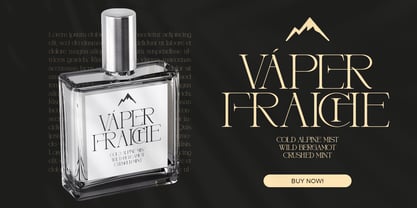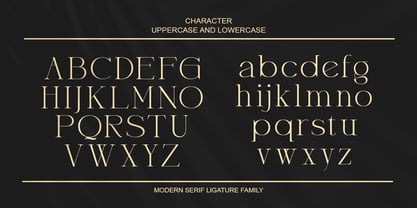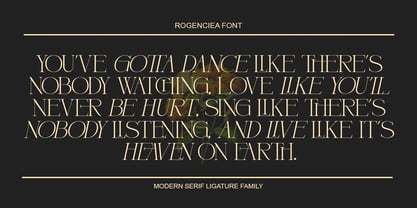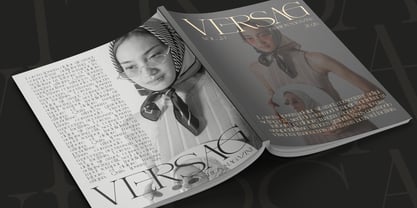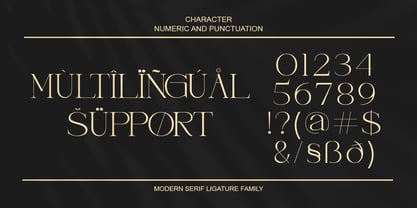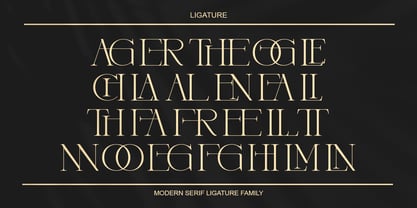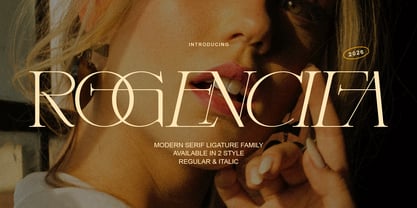
Rogenciea
by Ceeskiiw
The Rogenciea Font Family was designed by Cees Kiiw and published by Ceeskiiw. Rogenciea contains 2 styles and family package options. More about this family
Rogenciea is a captivating modern serif ligature typeface family designed to bring timeless elegance and high-end sophistication to any design project. Available in two versatile styles—Regular and Italic—this font blends classic Roman serif structures with contemporary flair, showcasing fluid transitions, sharp counters, and striking custom ligatures.
The beautifully crafted interlocking characters and stylistic alternates create a harmonious rhythm, making it perfect for luxury branding, editorial designs, high-fashion magazine layouts, product packaging, wedding stationery, and classy logo designs. Whether you want to achieve a bold, modern look with the Regular weight or add graceful movement with the sleek Italic style, Rogenciea offers the perfect balance of readability and artistic expression for digital and print media.